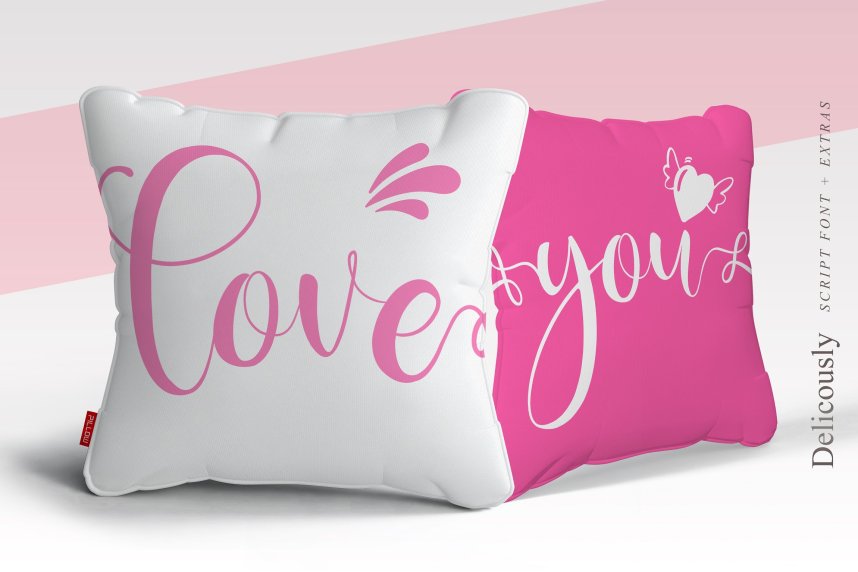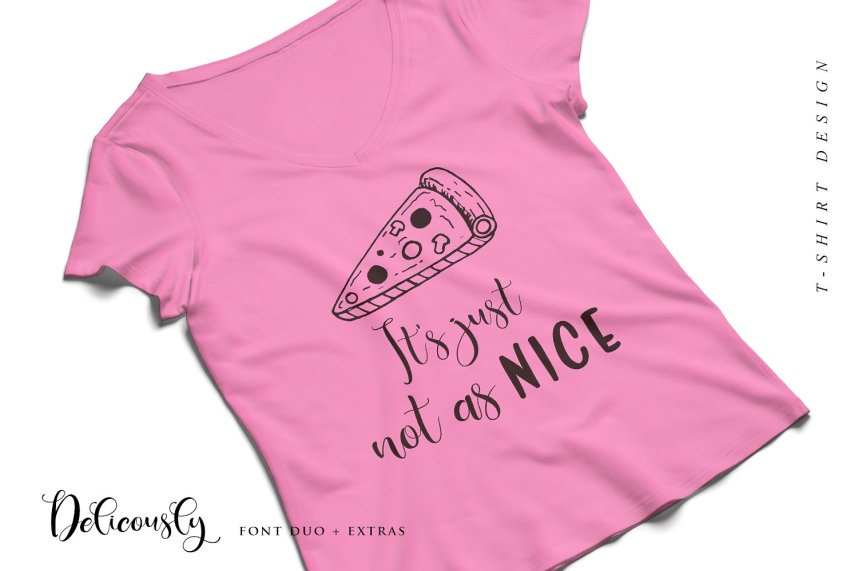
Deliciously Script Font
Deliciously Script Font – Free Demo
Introducing Deliciously Font. It is was designed and shares by Din Studio. This font will be suitable for logo, branding projects, product packaging,quotes,greeting card and all your other lovely projects.Deliciously Font Duo Set comes with beautiful and playful style. It contains a full set of lower & uppercase letters, a large range of punctuation, numerals, multilingual support and many cute alternates.